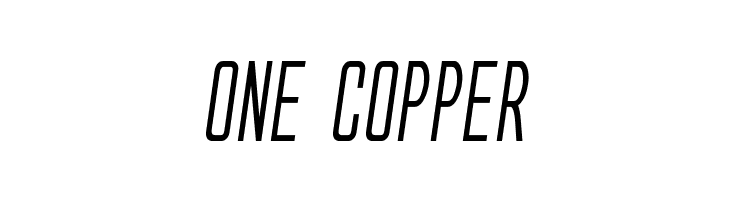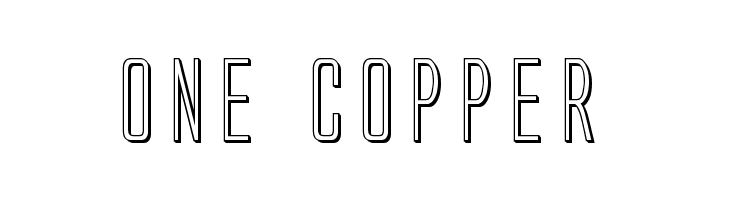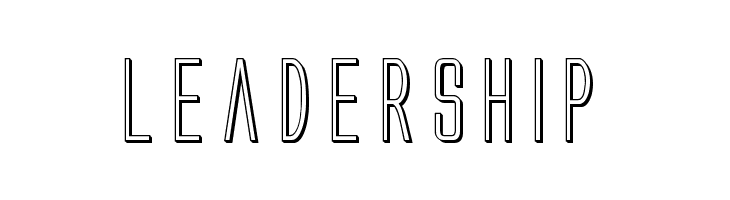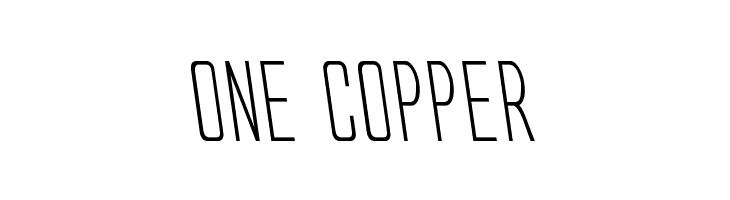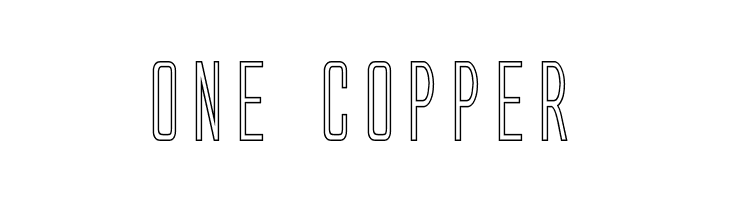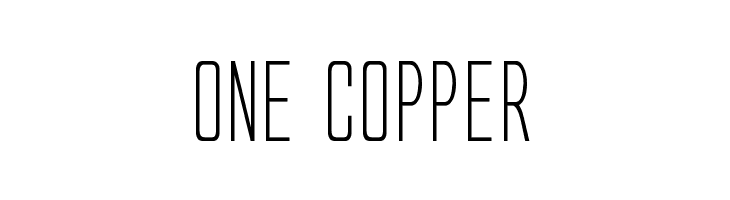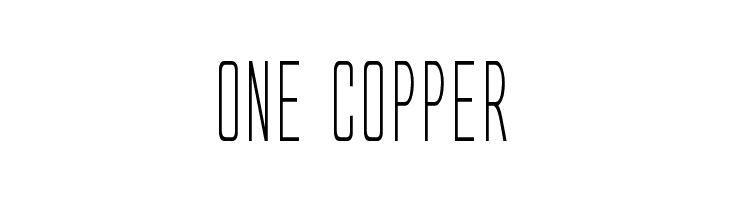
( Fonts by Iconian Fonts - Daniel Zadorozny )
A futuristic, elongated font with a sleek, modern design.
A futuristic, geometric font with a 3D outlined style.
A futuristic, 3D italic font with a sleek and dynamic design.
A futuristic, geometric font with tall, narrow letterforms and consistent stroke width.
A bold, italic, futuristic font with a dynamic and sleek design.
A futuristic, narrow font with consistent stroke widths and a modern aesthetic.
A futuristic, condensed italic font with sleek, elongated characters.
A futuristic, narrow font with elongated letterforms and a sleek, modern design.
A futuristic font with a gradient and dotted pattern, ideal for modern designs.
A futuristic, bold font with a gradient effect created by horizontal lines.
A futuristic, geometric font with a 3D outlined effect.
A futuristic, 3D italic font with angular and elongated letterforms.
A futuristic, geometric font with tall, narrow characters and consistent stroke width.
A bold, italic, and futuristic font with elongated, condensed characters and high contrast.
A sleek, futuristic font with tall, narrow characters and a modern aesthetic.
A sleek, futuristic, condensed italic font with uniform strokes.
A futuristic, narrow font with a sleek, modern design and expanded width.
A futuristic, expanded italic font with sleek, narrow letterforms.
A futuristic, gradient-style font with a digital, tech-savvy appearance.
A bold, futuristic font with a gradient line effect, perfect for tech-themed designs.
A futuristic, italic font with elongated, narrow letterforms and a sleek, modern design.
A futuristic, narrow, and left-leaning font with a sleek, modern design.
A futuristic, narrow outline font with a geometric and modern style.
A futuristic, narrow font with a sleek and modern design.
A sleek, futuristic italic font with elongated, narrow characters.
A futuristic, narrow, and slightly slanted font with a sleek and modern design.
A futuristic, geometric outline font with tall, narrow characters.
A futuristic, sleek font with tall, narrow letterforms and a modern aesthetic.